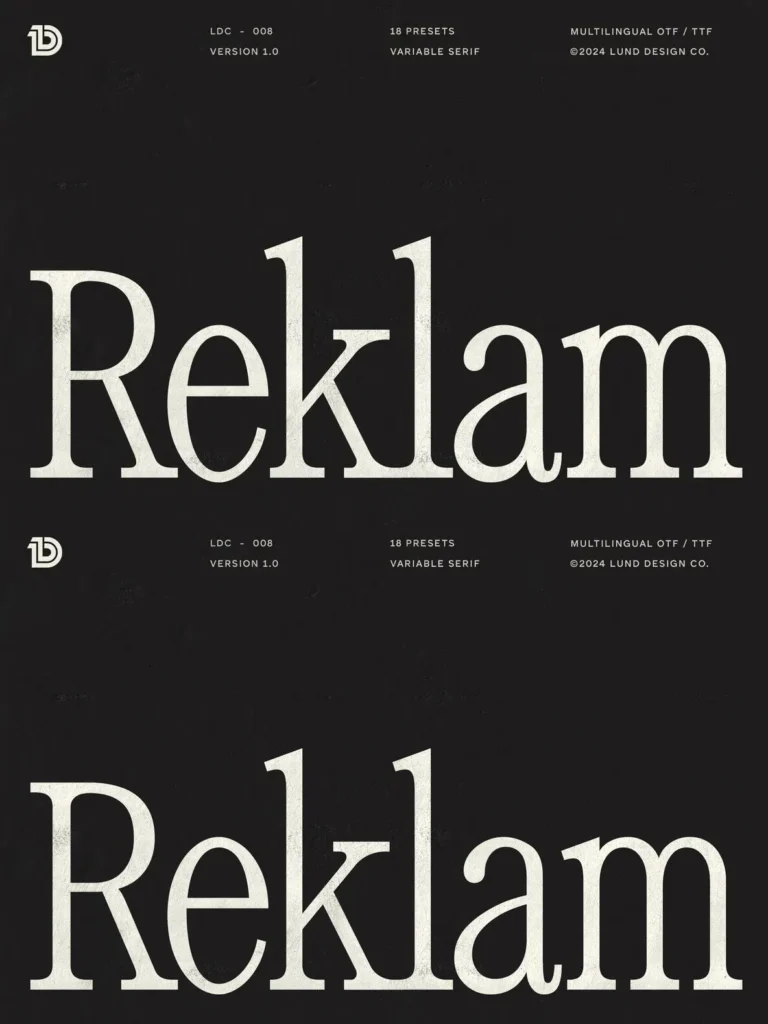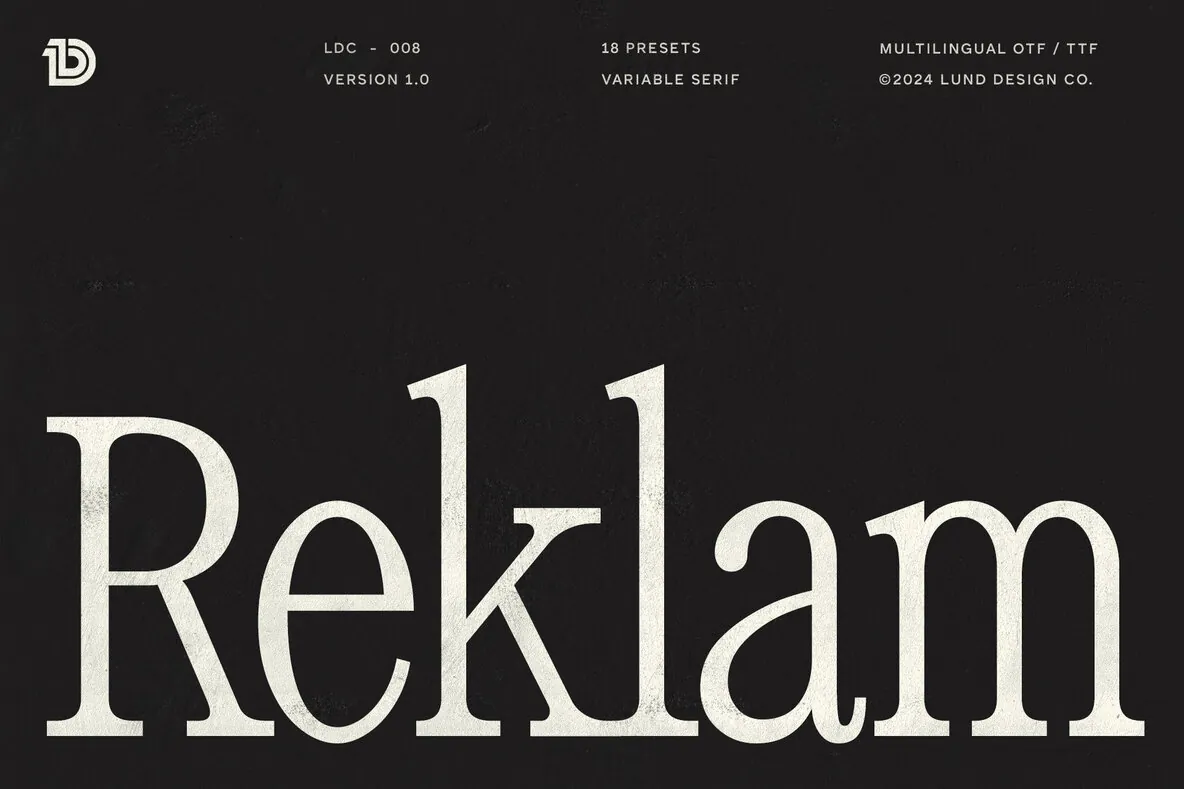
Reklam Retro Serif Typeface
Reklam is a sophisticated retro serif family designed for both impact and versatility. Its expressive letterforms channel 90s character, making it a distinctive choice for standout headlines or refined long-form text. The variable weights and widths allow designers to tailor the typeface to a range of creative needs, while the subtle quirks add personality without compromising readability.
This type family works well across editorial layouts, branding projects, and packaging. Its graceful curves and nostalgic flair draw immediate attention, inviting viewers into any narrative or visual identity. Reklam’s thoughtful design ensures that every word appears intentional and memorable.
Key Features
Elegant retro-inspired serif family
Variable weights and widths for flexible design
Unique letterforms with 90s personality
Strong presence at both text and headline sizes